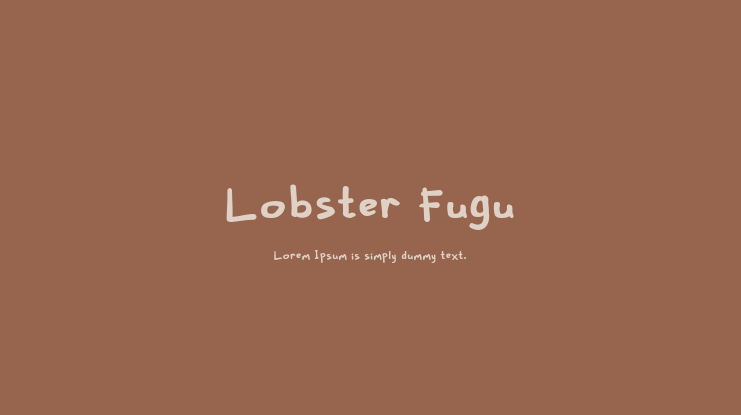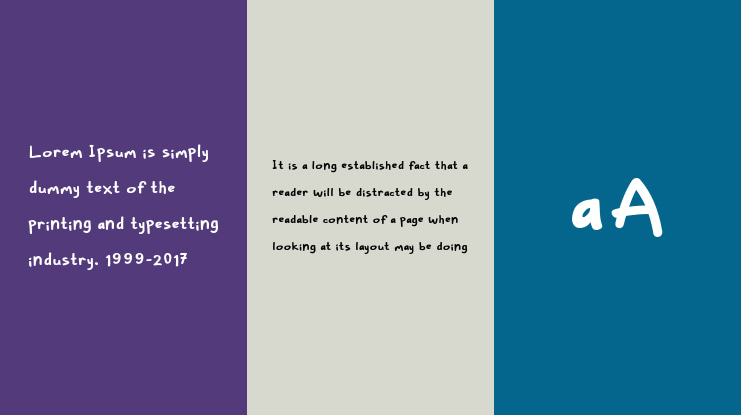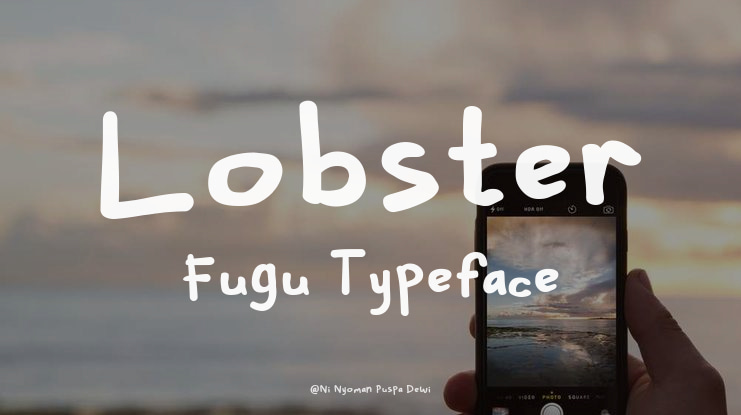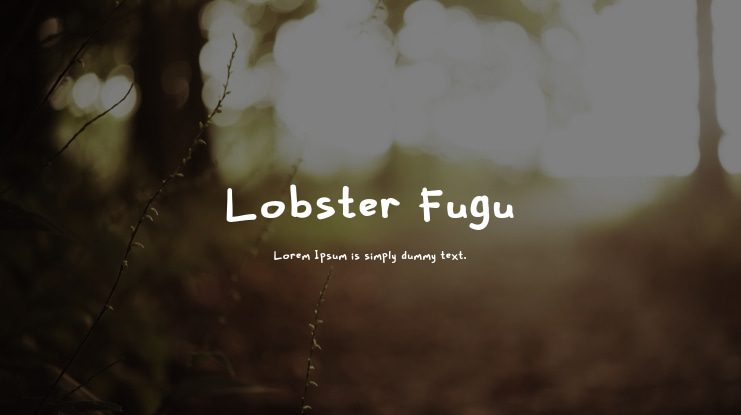
Lobster Fugu Font
Ni Nyoman Puspa Dewi
"Lobster Fugu" is a charming handwritten font that captures the whimsical essence of a child's writing while maintaining a distinct and engaging style. Each letter is playfully crafted, featuring uneven lines and irregular shapes that mimic the spontaneity and innocence of youthful penmanship